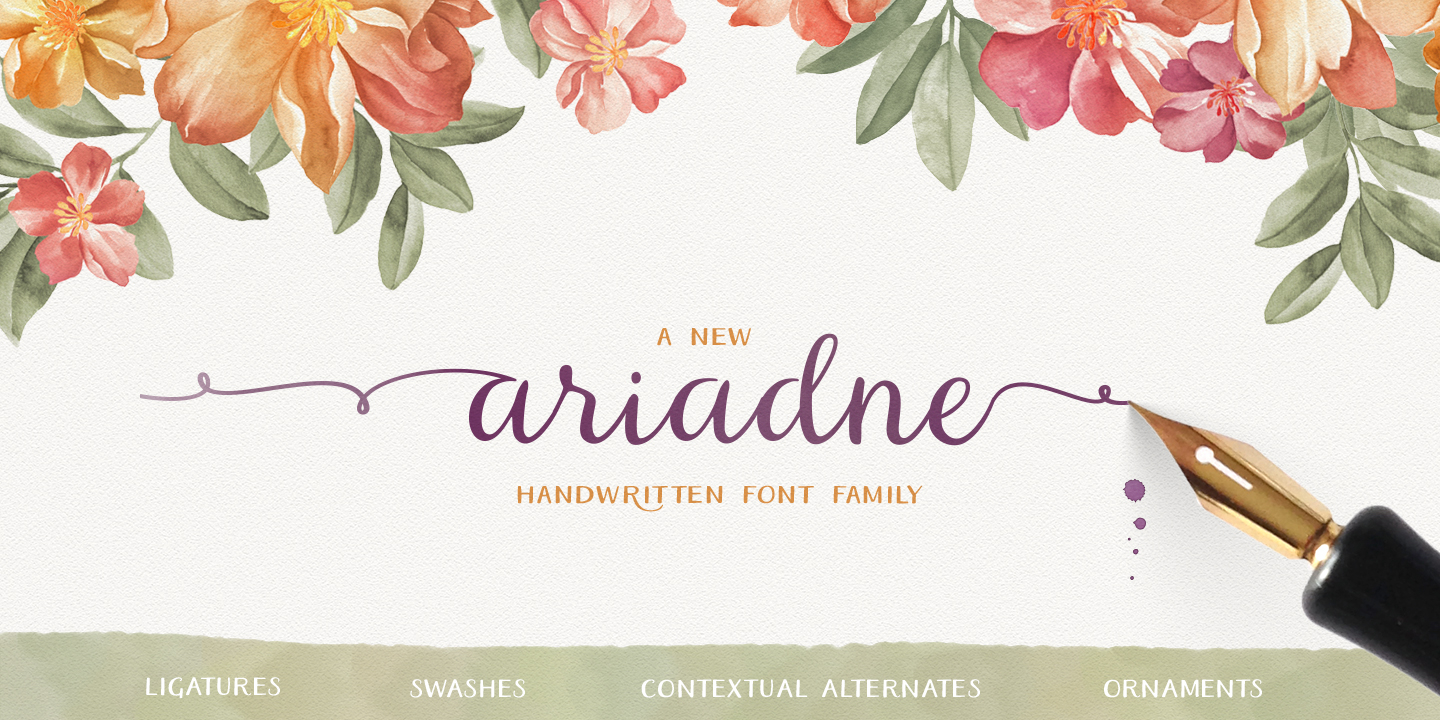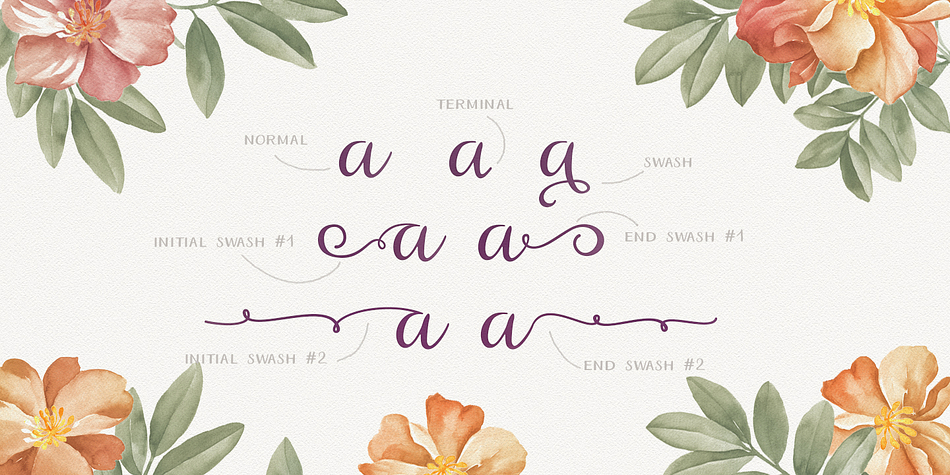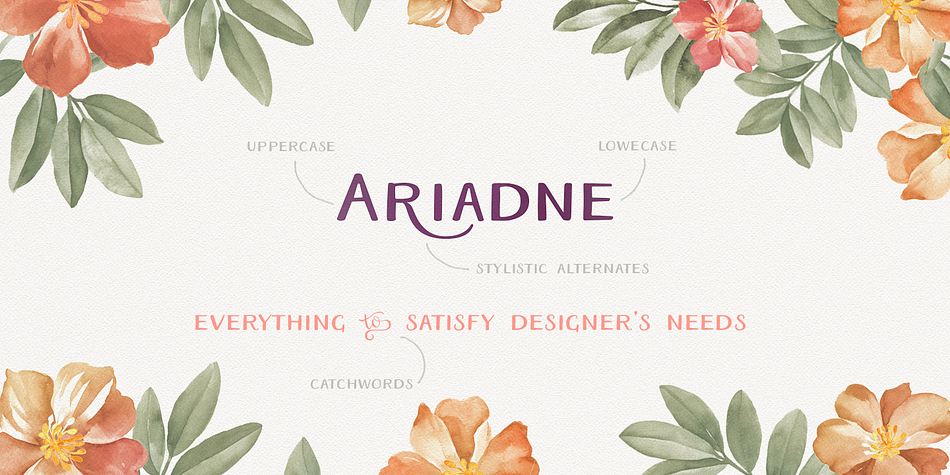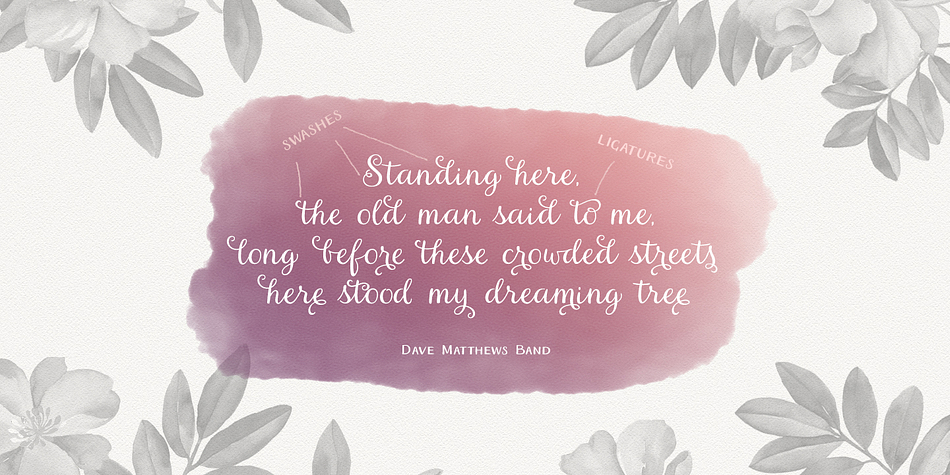
Ariadne is a script, hand display and modern calligraphy font family. This typeface has three styles and was published by My Creative Land.
Ariadne is a handwritten font family inspired by modern handlettering and it includes three fonts: Ariadne Script, Ariadne Sans and Ariadne Sans Condensed. It has a unique character and full of open type features such as ligatures, swashes, ornaments, catchwords etc. The fonts are best used in an open type aware software.
Most diacritics are included and the font can be used with most of the European languages.